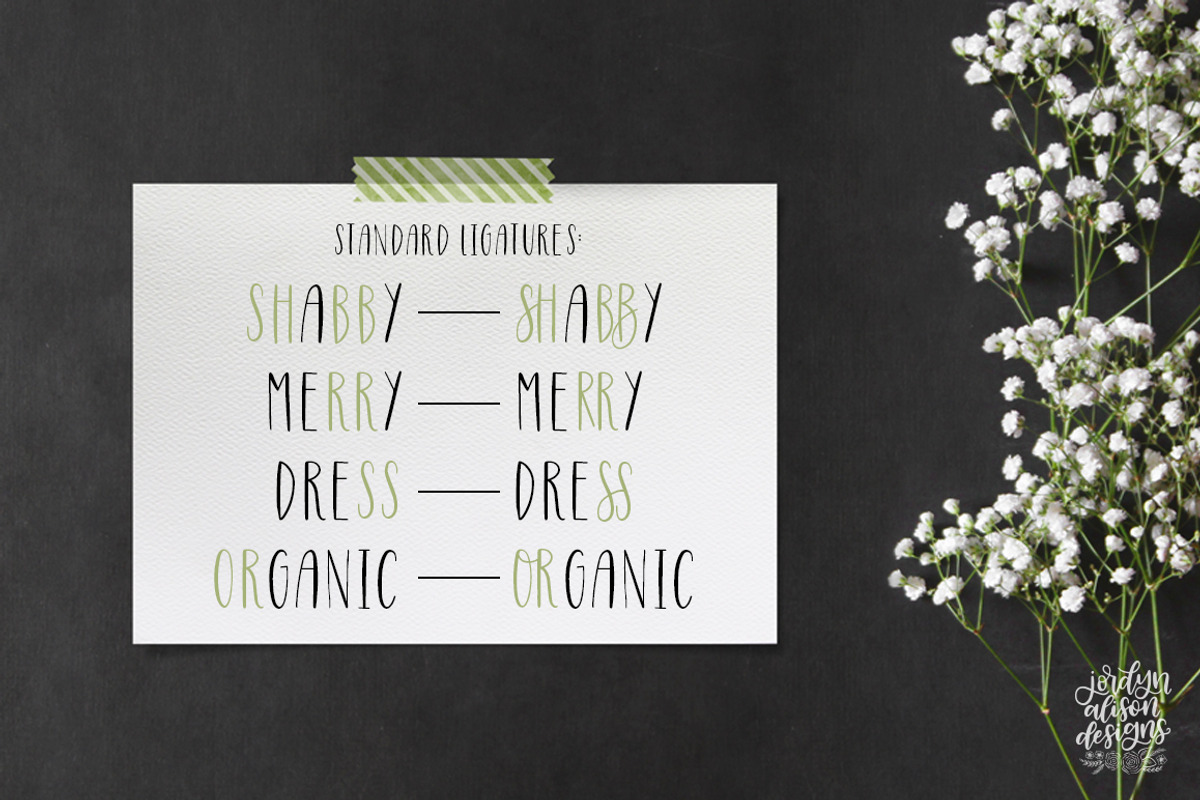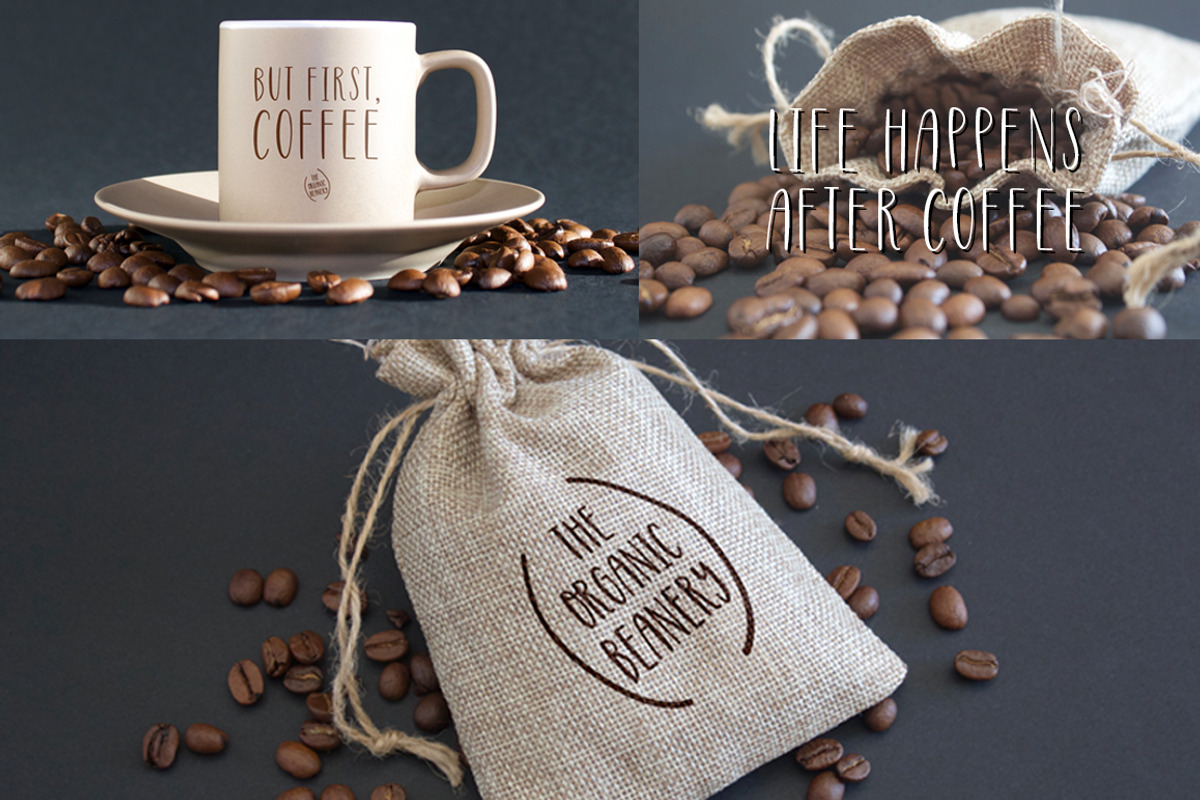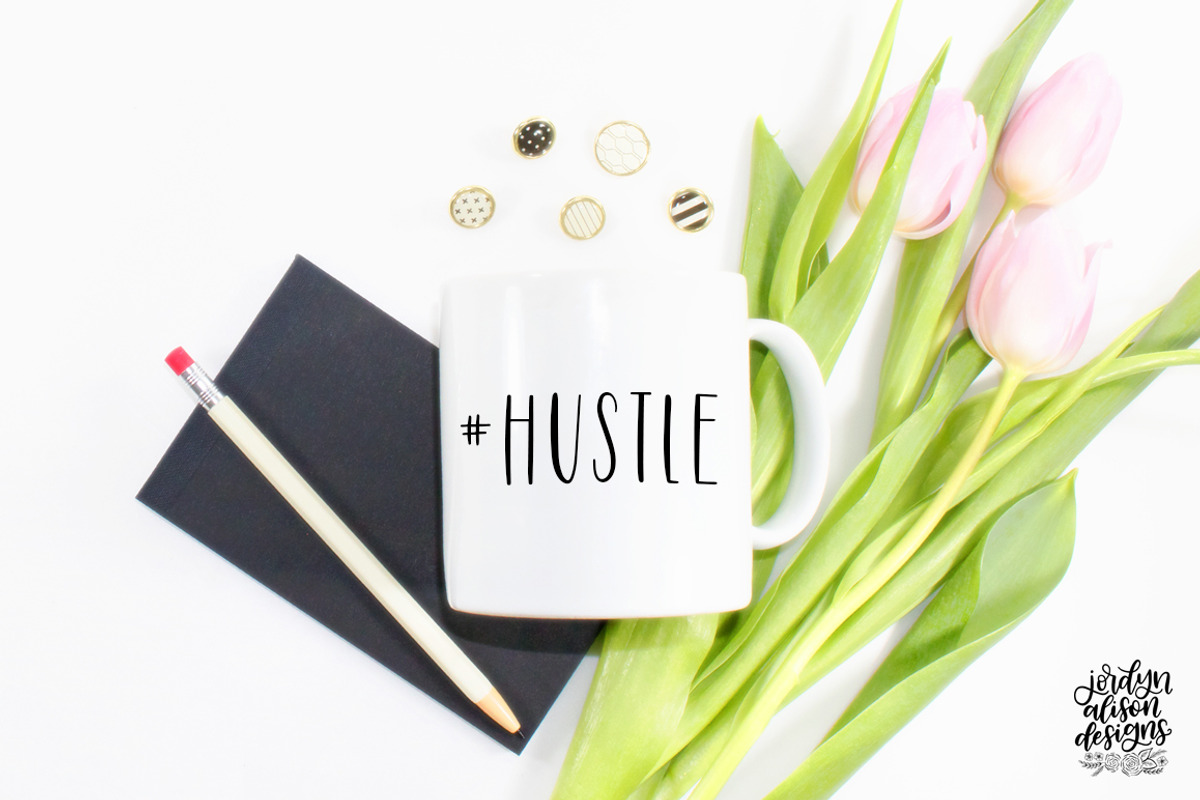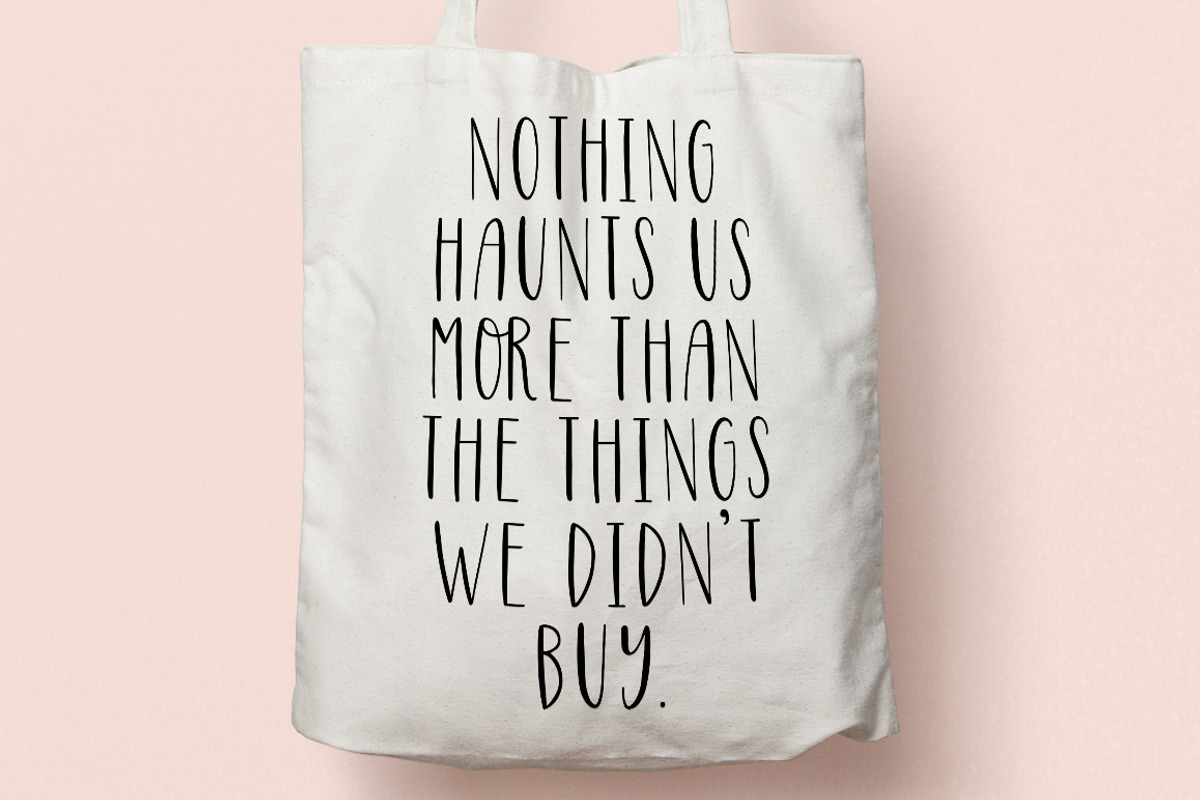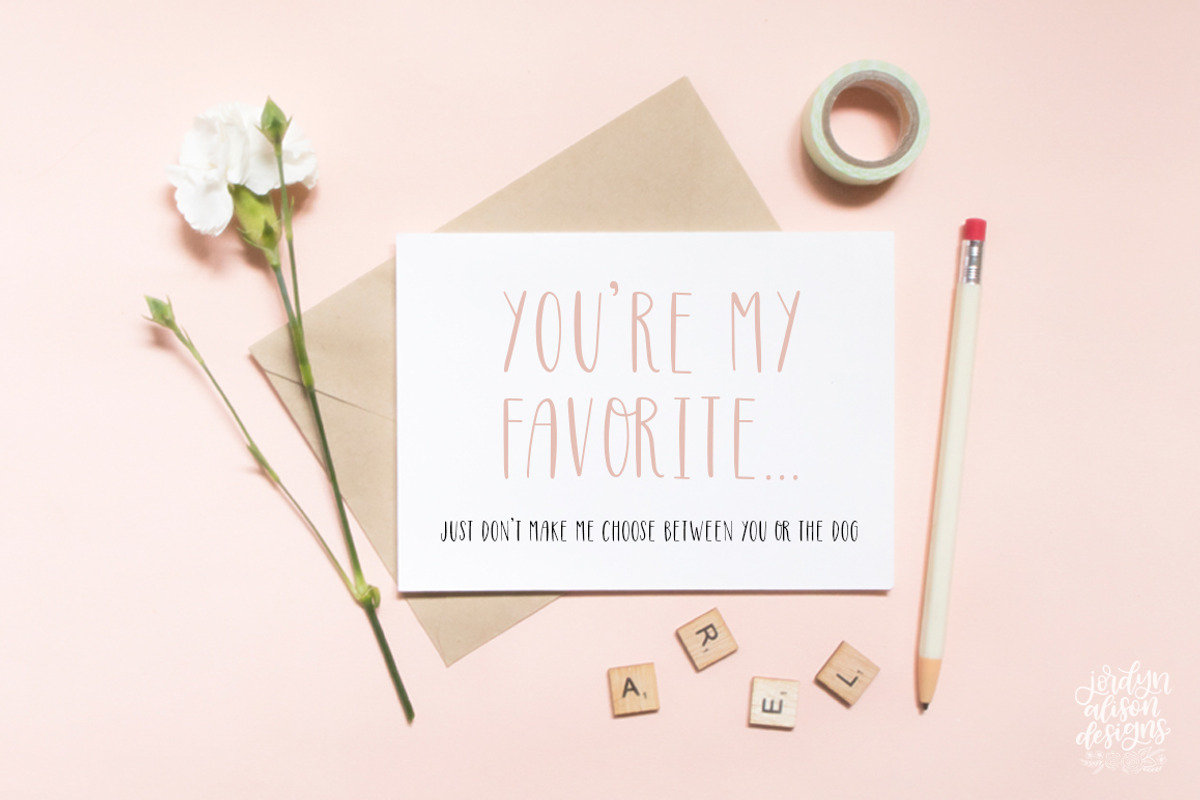
Highwaisted Skinny Caps Font
June 2019 Update: The font has now been fully PUA encoded. It also has been cleaned up more, and I've added new alternates (H,J,R) and new ligatures (EE FF).
Highwaisted is a hand-lettered skinny all caps font!
Highwaisted font features:
Full set of uppercase letters
4 stylistic alternates
Numbers and punctuation
- Full set of uppercase letters
- 7 ligatures
- 4 stylistic alternates
- Numbers and punctuation